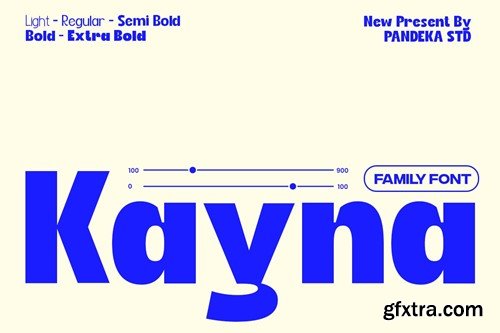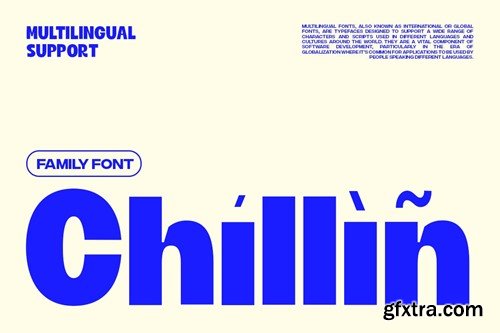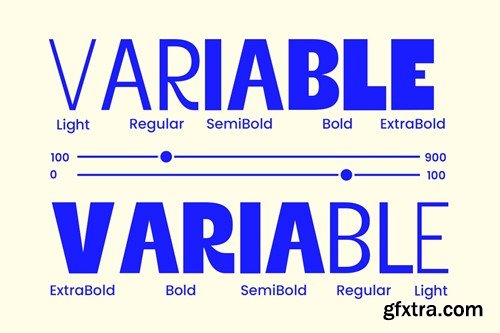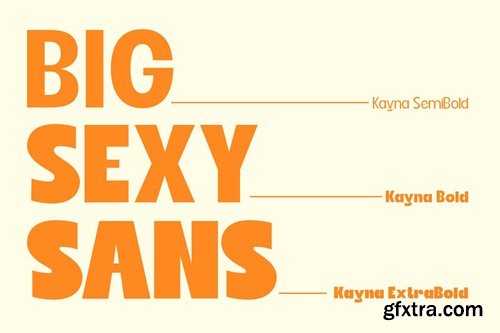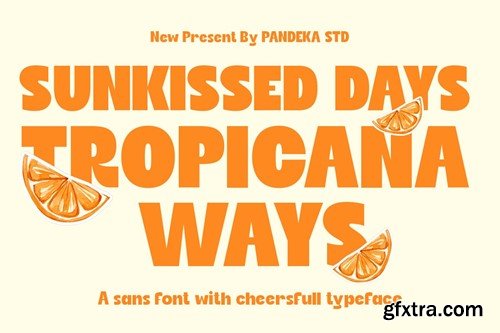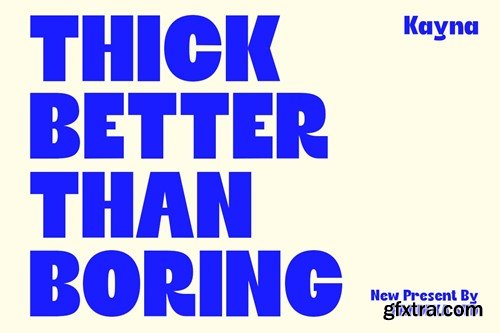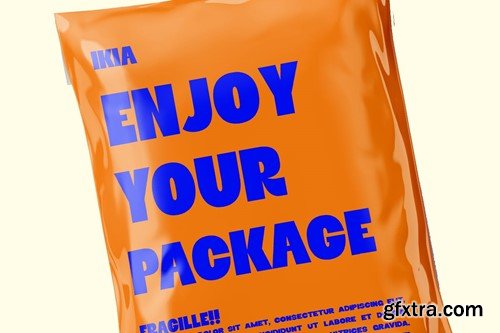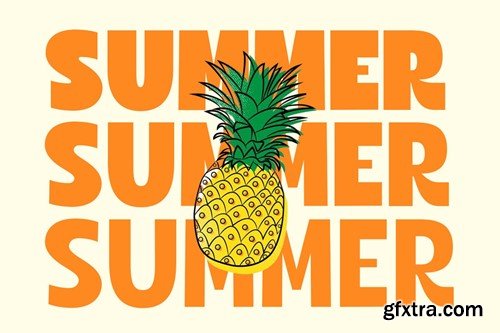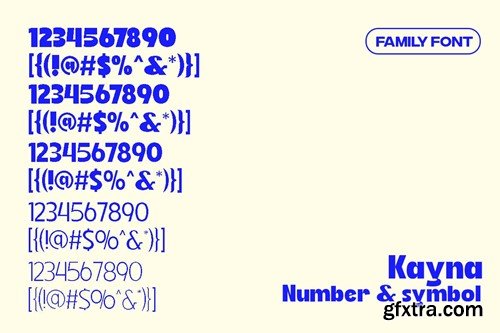
Introducing Kayna – a versatile sans-serif font family by Pandeka Studio! Kayna is a clean and modern sans-serif font family that comes in 5 distinct variations: Light, Regular, Semi Bold, Bold, and Extra Bold. Each weight is designed to provide flexibility and legibility, making Kayna perfect for a wide range of design projects. Kayna is sleek, stylish, and incredibly adaptable. Whether you need a font for headlines, body text, or anything in between, Kayna delivers with its contemporary aesthetic and high readability. Features: Language Support: Danish, English, Estonian, Filipino, Finnish, French, Friulian, Galician, German, Gusii, Indonesian, Irish, Italian, Luxembourgish, Norwegian Bokmål, Norwegian Nynorsk, Nyankole, Oromo, Portuguese, Romansh, Rombo, Spanish, Swedish, Swiss-German, Uzbek (Latin) Feel free to follow, like, and share. Thanks so much for checking out my shop! Have a great day! Pandeka Studio